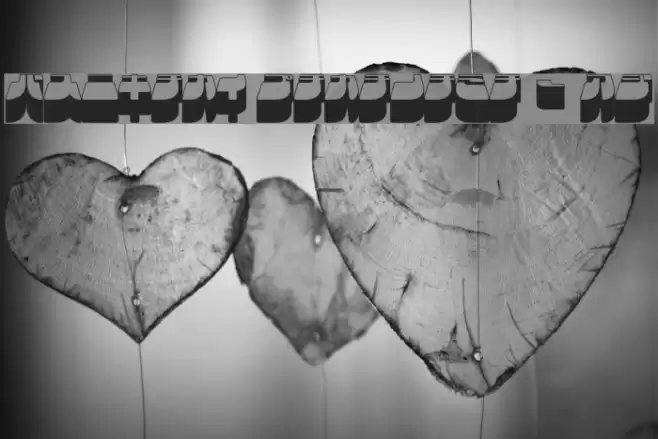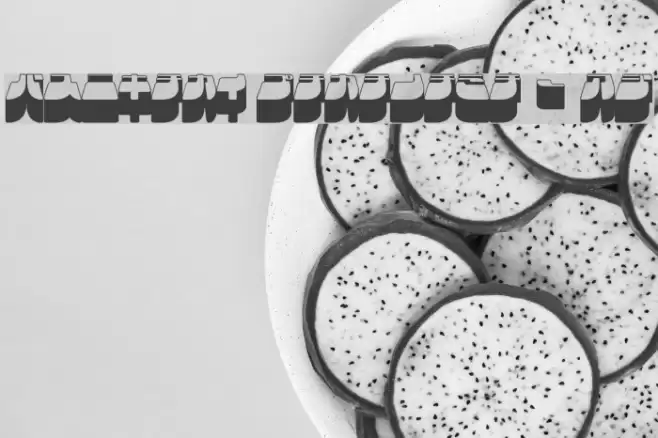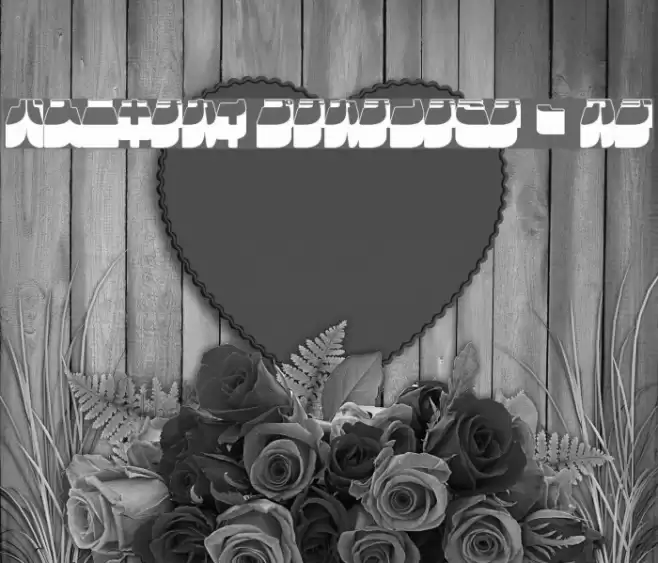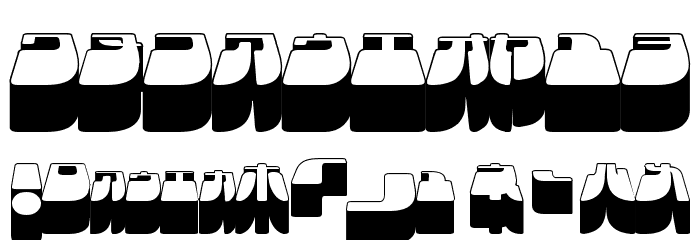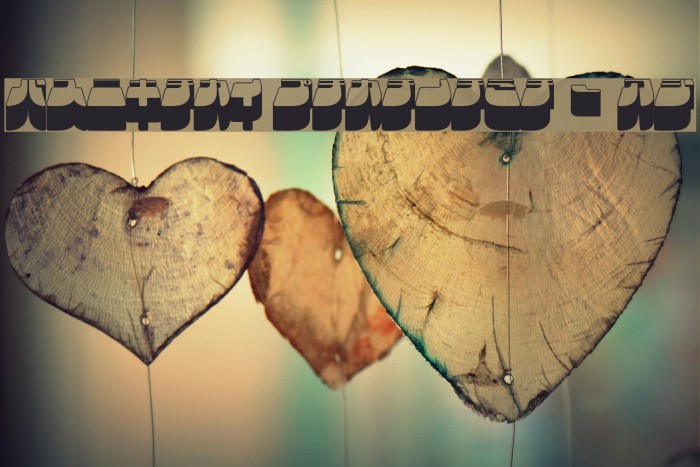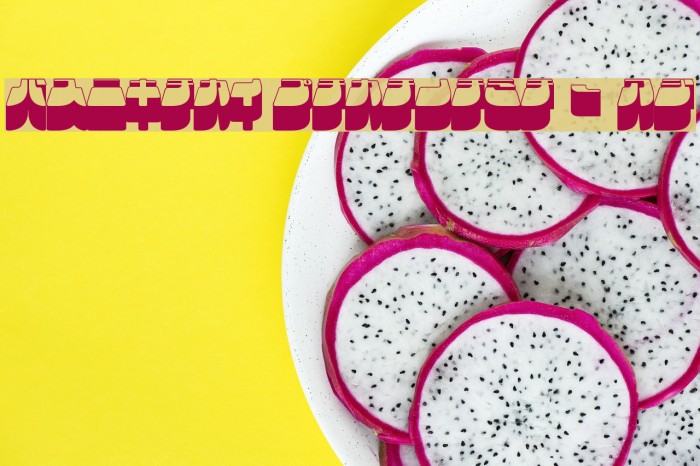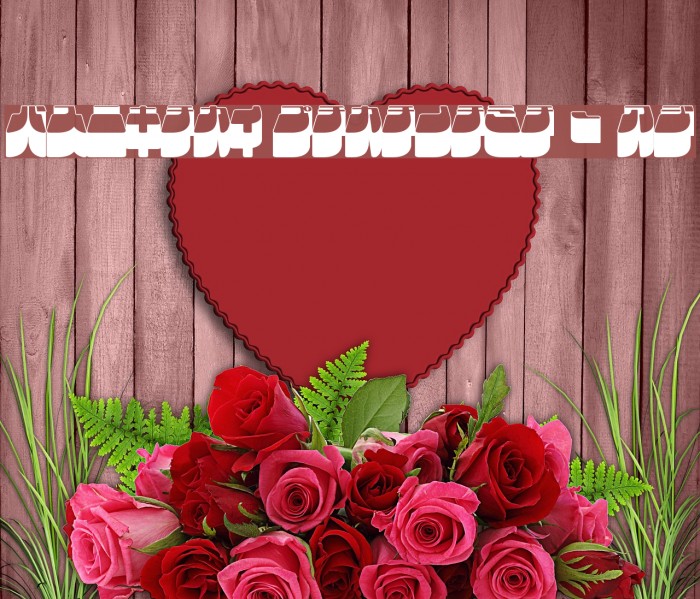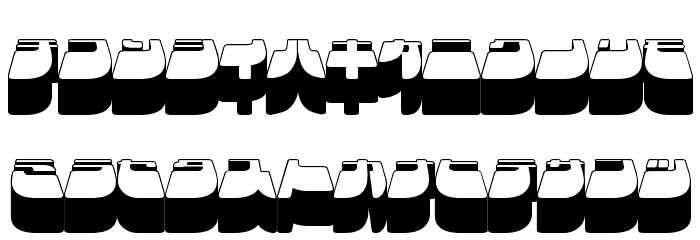
Frigate Katakana - 3D Font
Frigate Katakana - 3D Description
This font features a bold, three-dimensional style with a strong visual impact. The characters are rendered in a blocky, geometric form, giving them a futuristic and dynamic appearance. The 3D effect is achieved through the use of shadows and highlights, creating a sense of depth and volume. Each character is distinct and easily recognizable, making it suitable for attention-grabbing designs. The font's unique style is reminiscent of digital or sci-fi themes, making it ideal for projects that require a modern and edgy look.
A bold, 3D geometric font with a futuristic and dynamic style from 3D fonts.
- Proposed Projects: Ideal for video game titles, sci-fi movie posters, tech company logos, and digital art projects.